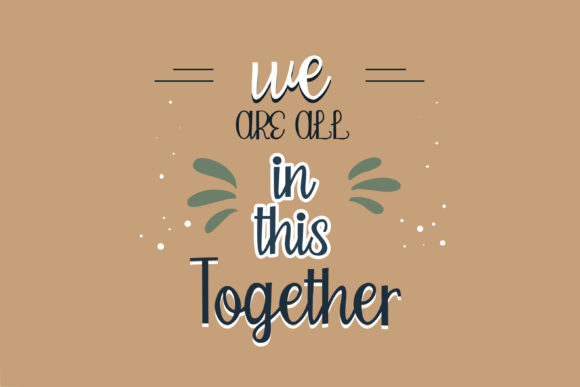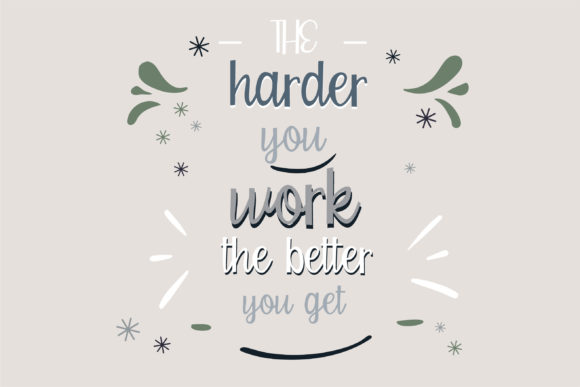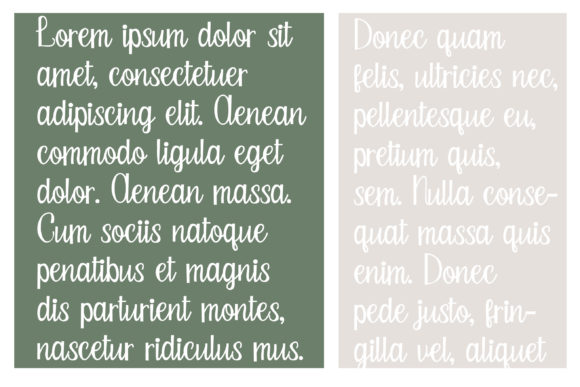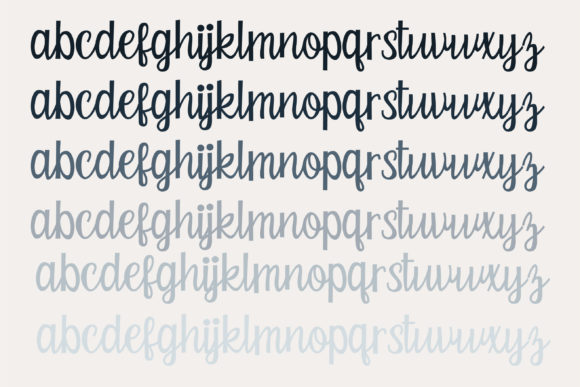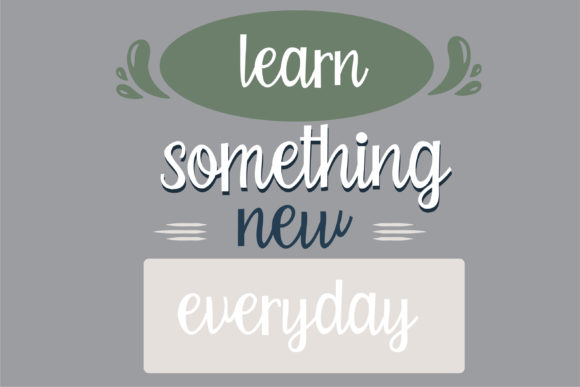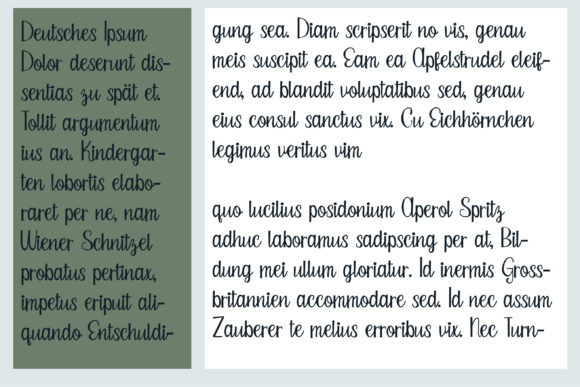
The Sweet Spot: Discovering the Charm of Candied Yams Font
I’ll never forget the design project that led me to Candied Yams Font. I was working on a branding project for a trendy bakery, and I needed a font that would capture the playful, yet sophisticated vibe of their brand. As I scrolled through font after font, nothing seemed quite right – until I stumbled upon Candied Yams. Its unique blend of chic and quirkiness instantly resonated with the bakery’s aesthetic, and I knew I’d found the perfect fit.
- ✨ Unique personality: Candied Yams Font has a distinct, handwritten charm that sets it apart from more traditional fonts.
- ✅ Versatility: This font is perfect for a wide range of design projects, from product packaging to social media graphics.
- 💕 Emotional connection: The font’s playful, whimsical feel helps create an instant emotional connection with your audience.
- 🤔 Legibility at small sizes: While Candied Yams Font is stunning at larger sizes, it can become a bit tricky to read at smaller sizes (below 10pt). ⚠️
- ⚠️ Limited formal applications: Due to its playful nature, Candied Yams Font might not be the best choice for very formal or corporate designs.
Exploring Alternatives: Similar Fonts to Candied Yams
If you love Candied Yams Font, you might also enjoy these similar fonts:
- Karla: A modern, elegant sans-serif font perfect for designs that need a bit of sophistication.
- Great Vibes: A fun, handwritten script font ideal for creating eye-catching headlines and titles.
- Lobster: A luxurious, elegant script font suitable for high-end branding and designs.
- Pacifico: A beautiful, modern script font with a relaxed, friendly feel.
The Story Behind Candied Yams Font
Candied Yams Font was designed with the intention of capturing the whimsical, playful spirit of everyday conversations. Its creator aimed to craft a font that would feel approachable, yet stylish – perfect for designs that need a bit of personality. While the exact backstory of the font’s creation might be unclear, its impact on the design community is undeniable.
Q: What makes Candied Yams Font unique?
A: Candied Yams Font stands out due to its distinctive handwritten style, which blends chic and quirky elements.
Q: Is Candied Yams Font easy to read?
A: Generally, Candied Yams Font is easy to read, especially at larger sizes. However, it may become a bit challenging at smaller sizes.